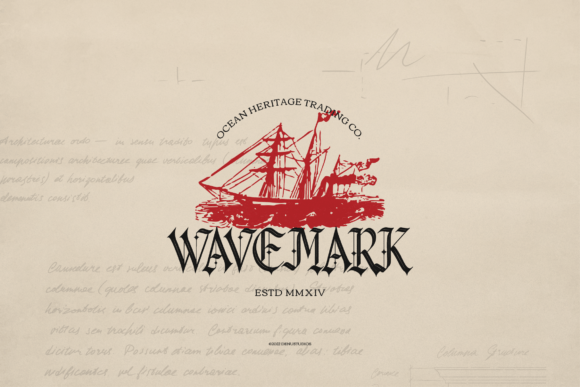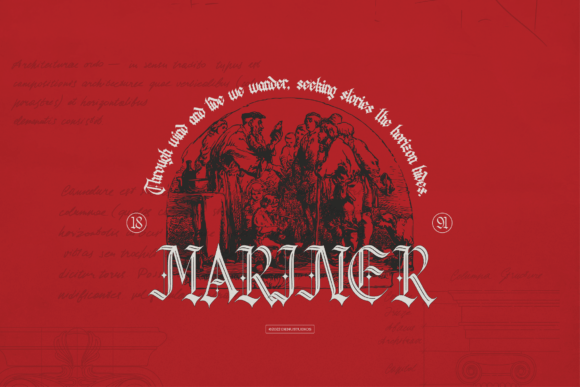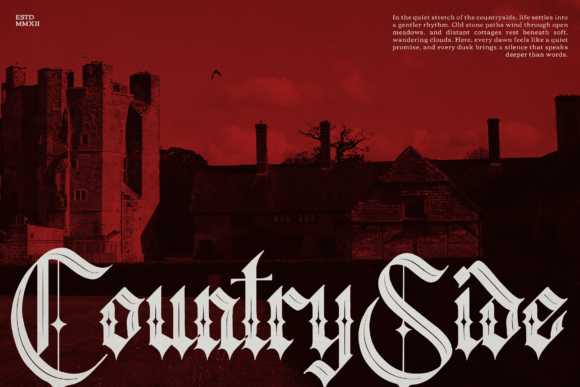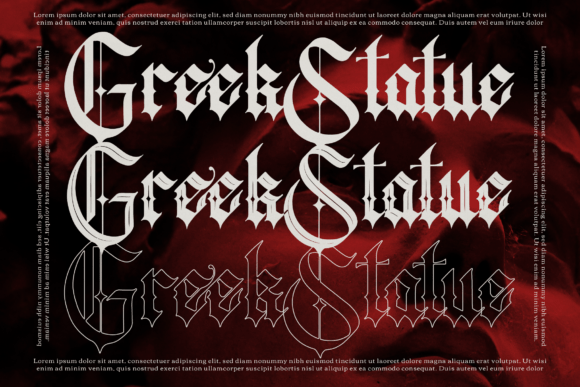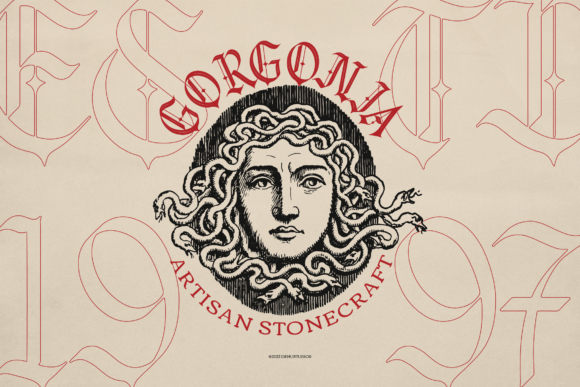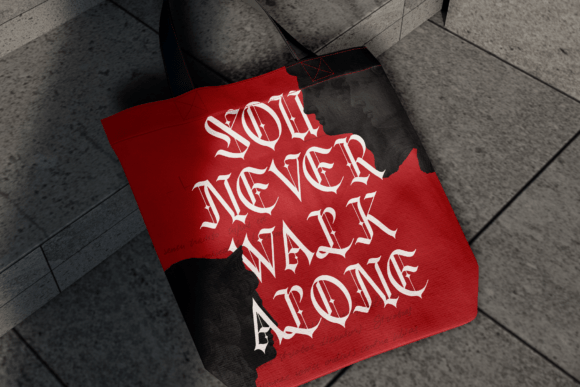
Introduction to Kileydot Font
Have you ever stumbled upon a design that sparks your creativity and leaves you wondering how to recreate it? That’s exactly what happened to me when I first laid eyes on the Kileydot Font. Its unique blackletter style is perfect for adding a touch of elegance and sophistication to any project. Whether you’re a seasoned designer or just starting out, this font is a valuable resource to have in your toolkit.
As a design enthusiast, I’m always on the lookout for high-quality fonts that can elevate my creative projects. The Kileydot Font is one such find, offering a wide range of applications from logos and branding to homeware designs and product packaging. With its transparent background and high-quality design, this font is a must-have for any designer looking to add a touch of blackletter flair to their work.
So, what makes the Kileydot Font so special? In this article, we’ll delve into the world of blackletter fonts and explore why the Kileydot Font is a valuable addition to any design resource. Whether you’re looking for a free download or just want to learn more about this amazing font, you’re in the right place.
Key Features of Kileydot Font
- High-quality design resource for creative projects, available for free download with a transparent background.
- Features a unique, hand-drawn design style that adds a personal touch to any project.
- Designed at a high resolution of 300 DPI for crisp and clear display on various devices and screens.
- Perfect for use in digital design projects, such as web graphics, social media posts, and presentations.
- Comes in a single font weight, ideal for creating a consistent and cohesive visual identity.
Honest Review: Kileydot Font
As a designer, I’m always on the lookout for high-quality design resources to elevate my creative projects. The Kileydot Font is one such find that I’d like to share with you.
What works well: ✨ The Kileydot Font is a beautiful, elegant script font that’s perfect for adding a touch of sophistication to your designs. Its transparent background makes it easy to layer and combine with other elements, giving you a lot of creative freedom.
Here are some of its standout features:
- High-quality design that’s perfect for print and digital projects
- Transparent background for easy layering and combining with other elements
- Beautiful, elegant script font that’s perfect for adding a touch of sophistication
The Kileydot Font is suitable for a wide range of creative projects, including logos, business cards, social media graphics, and more.
For optimal results, pair the Kileydot Font with other high-quality design elements, such as high-resolution images or custom illustrations. Experiment with different font sizes, colors, and combinations to find the perfect look for your project.
What makes the Kileydot Font a high-quality design resource?
The Kileydot Font is a high-quality design resource due to its clean, modern design and high-resolution vector graphics. This makes it an ideal choice for creative projects, such as branding, advertising, and digital media, where visual clarity and precision are essential.